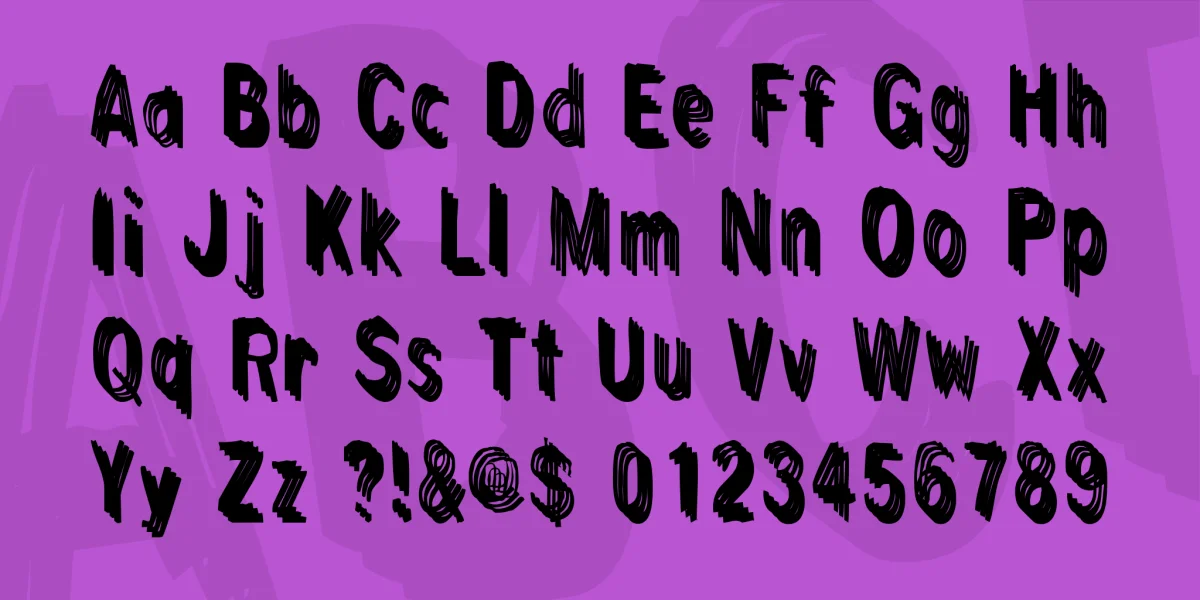
I saw a lame trailer for a 70's slasher looking gore flick. The preview looked like the buckets of blood orgasmatron style flick we all love. Rhonda is way beyond help. The letterforms look somewhat deranged, and now for the first time they are available in this handy digitized format.